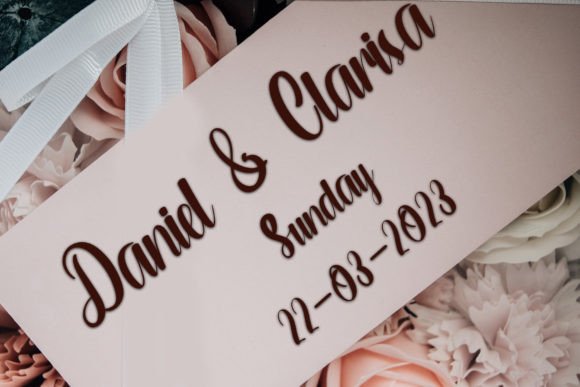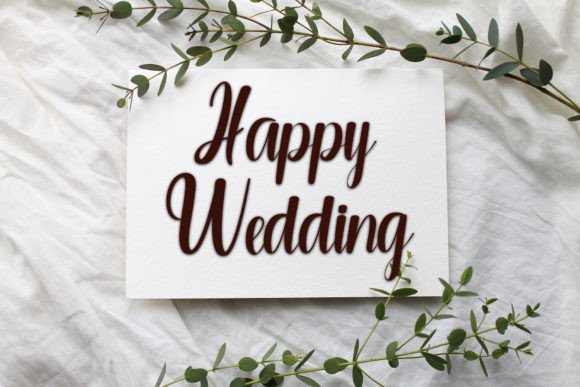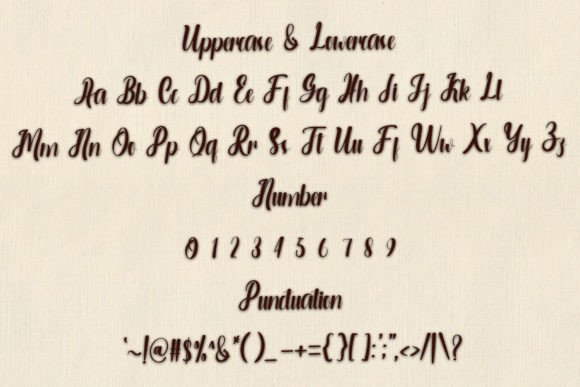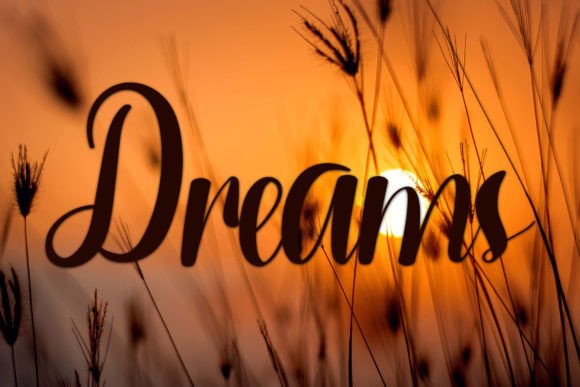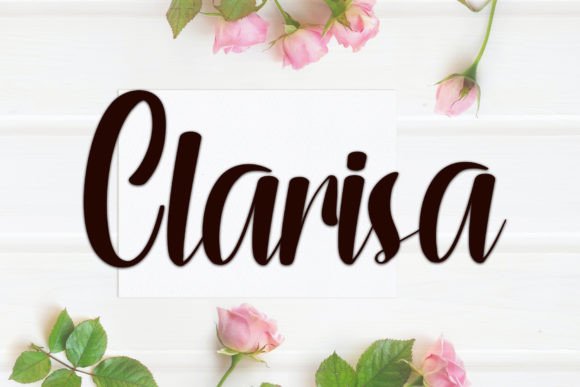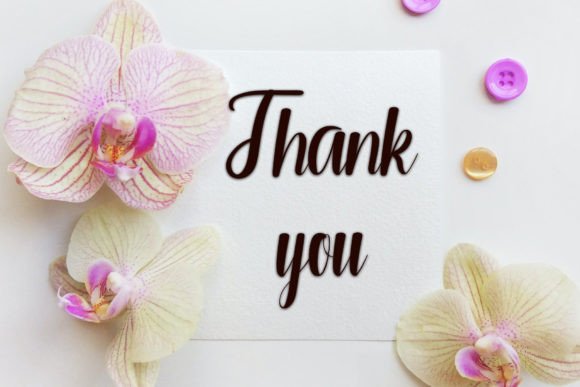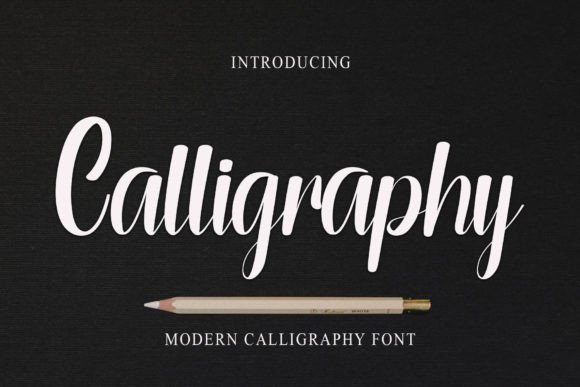
Elevate Your Designs with the Elegance of Calligraphy Fonts
Calligraphy is a neat and beautiful handwritten font described by an elegant touch, perfect for your favorite projects. Fall in love with its incredibly distinct and timeless style, and use it to create spectacular designs! In this article, we’ll explore the world of calligraphy fonts, their characteristics, and how to incorporate them into your design projects.
What is a Calligraphy Font?
A calligraphy font is a type of font that mimics the elegant and flowing style of calligraphy, a traditional art form that involves decorative handwriting. Calligraphy fonts are designed to replicate the intricate and beautiful lettering styles that are often used in formal documents, invitations, and artistic projects.
Characteristics of Calligraphy Fonts
Calligraphy fonts are known for their distinctive characteristics, which include:
- Flowing lines and curves: Calligraphy fonts feature smooth, flowing lines and curves that give them a sense of elegance and sophistication.
- Intricate lettering: Calligraphy fonts often feature intricate lettering styles, with flourishes and embellishments that add to their beauty.
- Timeless style: Calligraphy fonts have a timeless quality that makes them suitable for a wide range of design projects, from traditional to modern.
Types of Calligraphy Fonts
There are many different types of calligraphy fonts, each with its own unique characteristics and styles. Some popular types of calligraphy fonts include:
- Copperplate calligraphy: This style of calligraphy is known for its elegant and refined lettering, with a focus on precision and detail.
- Brush calligraphy: This style of calligraphy is characterized by its bold and expressive lettering, with a focus on movement and gesture.
- Spencerian calligraphy: This style of calligraphy is known for its elegant and flowing lettering, with a focus on beauty and sophistication.
How to Use Calligraphy Fonts in Your Designs
Calligraphy fonts can add a touch of elegance and sophistication to a wide range of design projects, from wedding invitations to branding and packaging. Here are some tips for using calligraphy fonts in your designs:
- Use them sparingly: Calligraphy fonts can be overwhelming if used excessively, so use them sparingly to add emphasis and elegance to your designs.
- Pair them with simple fonts: Pair calligraphy fonts with simple, clean fonts to create a striking contrast and add visual interest to your designs.
- Experiment with different styles: Don’t be afraid to experiment with different calligraphy font styles to find the one that works best for your design project.
Best Practices for Working with Calligraphy Fonts
Here are some best practices to keep in mind when working with calligraphy fonts:
- Choose a high-quality font: Choose a high-quality calligraphy font that is well-designed and legible.
- Adjust font size and spacing: Adjust the font size and spacing to ensure that your text is easy to read and visually appealing.
- Use them in the right context: Use calligraphy fonts in the right context, such as in formal or elegant design projects, to maximize their impact.
Calligraphy fonts are a beautiful and elegant way to add a touch of sophistication to your design projects. With their flowing lines, intricate lettering, and timeless style, calligraphy fonts are perfect for a wide range of design projects, from traditional to modern. By following the tips and best practices outlined in this article, you can incorporate calligraphy fonts into your designs and create stunning, eye-catching visuals that will leave a lasting impression.